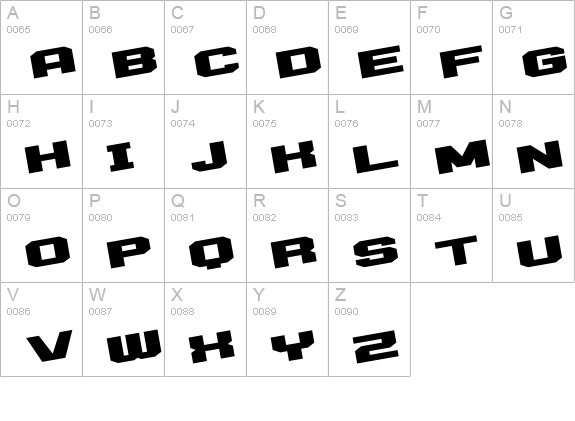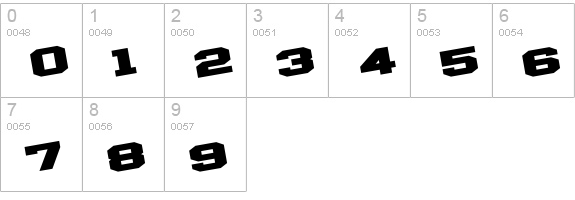
D3 Egoistism leaning Font Details
Introducing D3 Egoistism leaning font, a striking typeface that embodies the essence of confidence and self-expression. With its bold and assertive letterforms, this font exudes a powerful presence that demands attention. D3 Egoistism leaning font features a unique and edgy design, with each character leaning slightly to the right, adding a touch of dynamism to your typography. Its clean lines and sharp angles create a modern and contemporary aesthetic, making it perfect for a wide range of design projects. Whether you're designing a logo, creating eye-catching headlines, or crafting impactful posters, D3 Egoistism leaning font will elevate your designs to new heights. Its exceptional legibility ensures that your message will be conveyed with clarity and impact, leaving a lasting impression on your audience. But what truly sets D3 Egoistism leaning font apart is its versatility and accessibility. Not only does it provide a bold and distinctive look, but it is also freely available to download at FontsMarket.com. This means that you can unleash your creativity and incorporate this stunning font into your projects without any restrictions or limitations. With D3 Egoistism leaning font, you have the freedom to express yourself and bring your vision to life. Its captivating presence and effortless style will make your designs stand out from the crowd, leaving an indelible mark on those who encounter them. So why wait? Download D3 Egoistism leaning font today from FontsMarket.com and experience the power of this extraordinary typeface. Whether you're a professional designer or a passionate hobbyist, this font will undoubtedly become an invaluable asset in your creative toolkit. Embrace your ego and let your designs shine with D3 Egoistism leaning font.